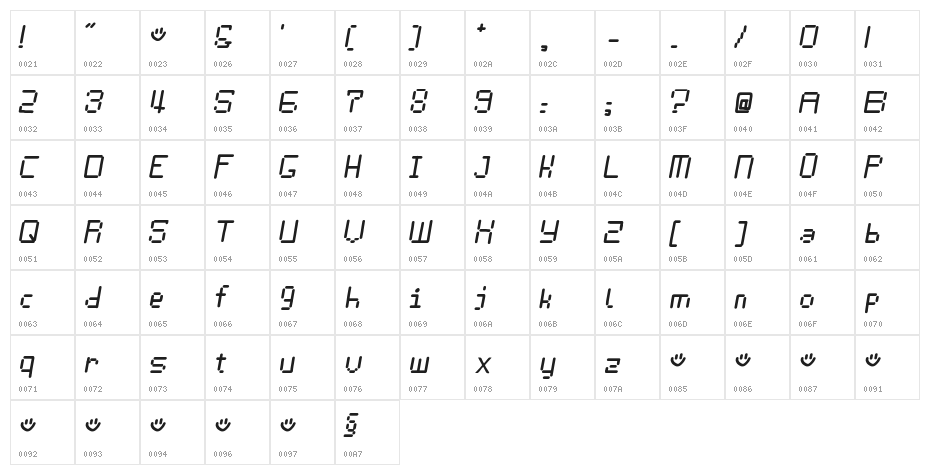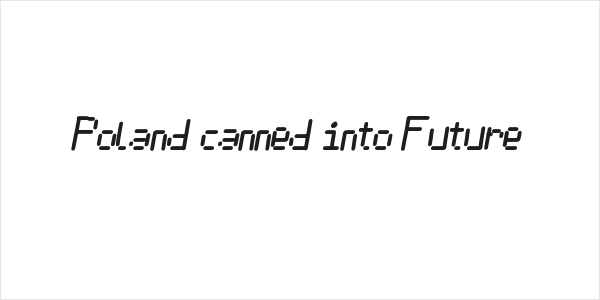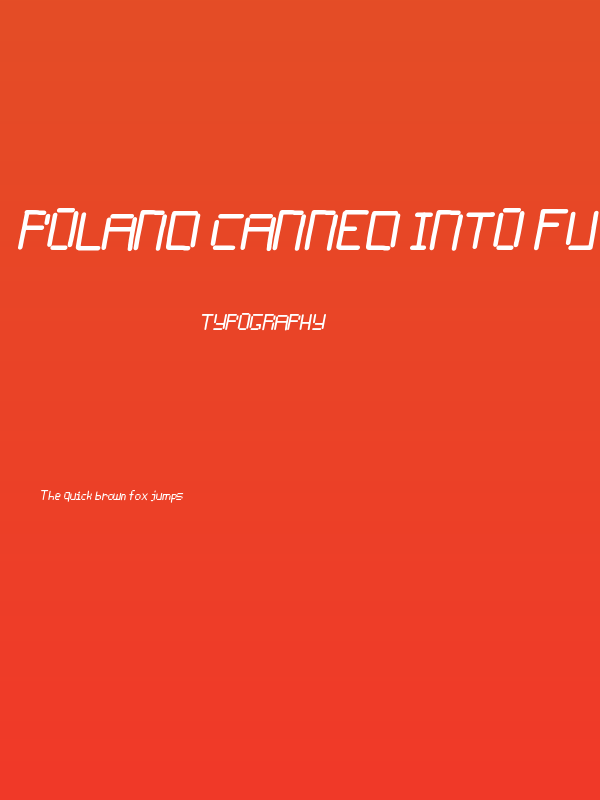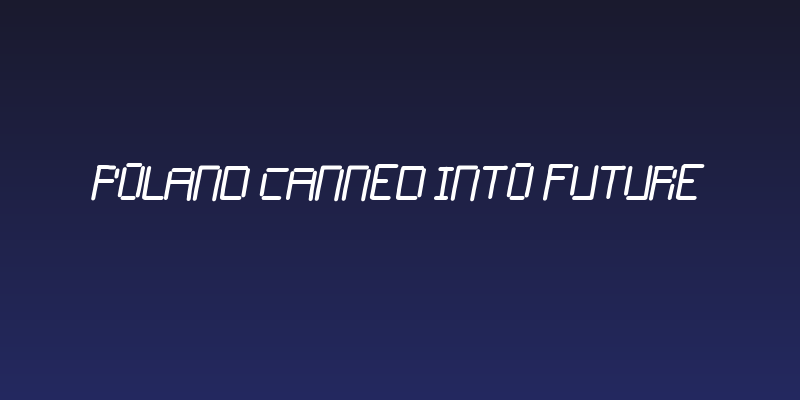
Poland canned into Future Font
Poland canned into Future Description
This font features a futuristic and digital aesthetic, characterized by its segmented, stencil-like appearance. The characters are composed of disconnected lines and dots, creating a high-tech, modern feel. The uppercase and lowercase letters maintain a consistent style, with rounded edges and uniform line thickness. The numbers and special characters follow the same design principles, ensuring a cohesive look across all elements. This font is ideal for projects that require a contemporary and innovative touch, such as technology branding, digital interfaces, and sci-fi themed designs.
| Proposed Projects | Ideal for technology branding, digital interfaces, sci-fi themed designs, and modern advertising. |